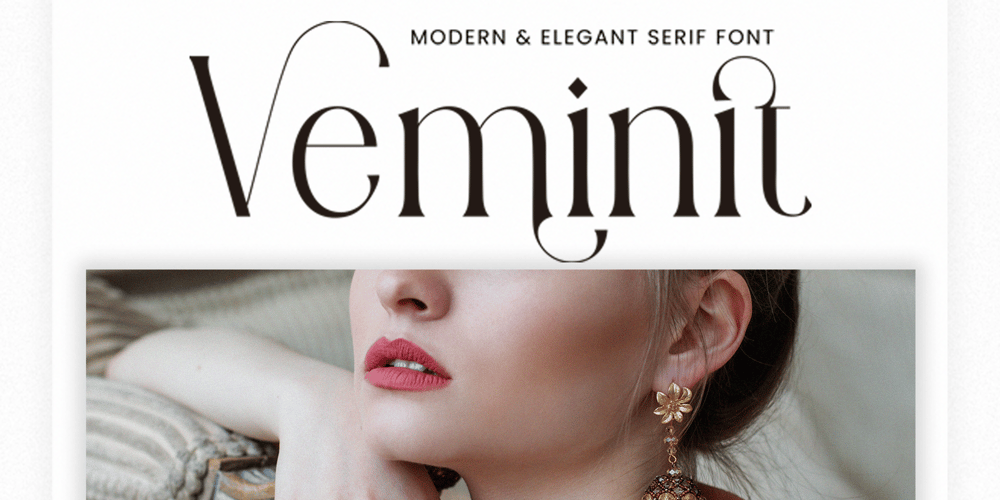
Veminit
Veminit font
Veminit Font Family was designed by Ahmad Riqi and published by Slide Shoot. Veminit contains 1 styles and family package options. Veminit Serif is a balanced, smooth, elegant and stylish serif font. He has a beautiful character. It fits perfectly with invitation card designs, company logos, movie titles, movie names, business cards, book titles, brand names and various other designs. Veminit Serif is a subtle serif font that exudes sophistication and elegance. Its stylish alternations and ligatures make this font the perfect partner for any project.FEATURE :- Ligature- Uppercase and lowercase- Numbering and Punctuation- Works on PC or Mac- Simple Installation- Supports Adobe Illustrator, Adobe Photoshop, Adobe InDesign, also works in Microsoft WordHope you like it.Thank you.